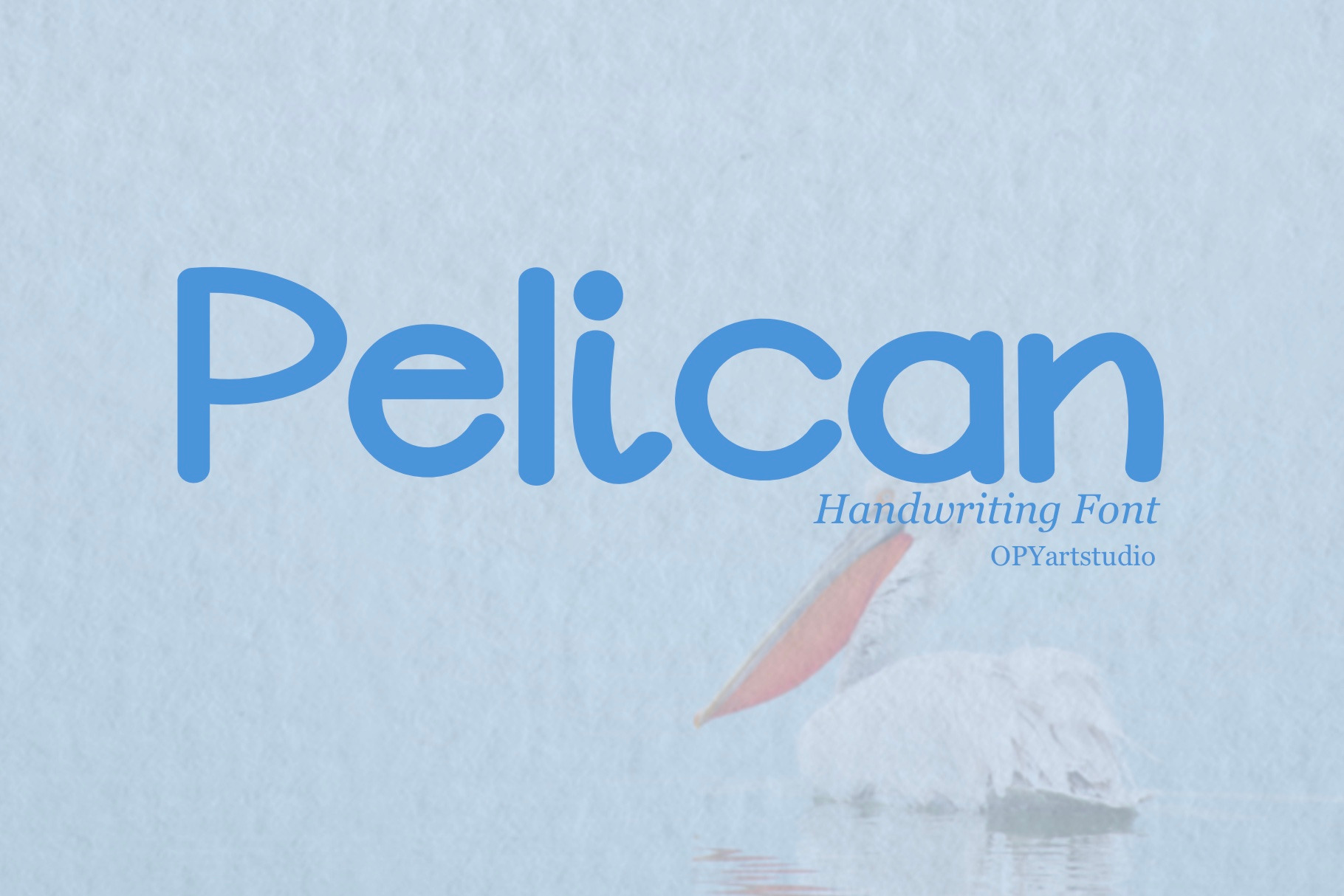
Pelican - Handwriting Rounded Font
Pelican is a handwritten font, characterized by its thickness and easy-to-read quality. Its unique shape is reminiscent of a pelican, with curved and rounded lines, giving it a distinct and recognizable appearance.
The character of this font is friendly, kind, and warm, much like that of a family. It is perfect for creating content that wants to evoke a sense of close connection with people, such as kids' books, posters, and presentations.
This font is suitable for all ages, even children, and its artistic expression is truly exceptional. It's a must-have for any artist or designer looking to add a personal and approachable touch to their projects. In short, this font is perfect for artists and anyone looking to create content that is engaging and welcoming to their audience.